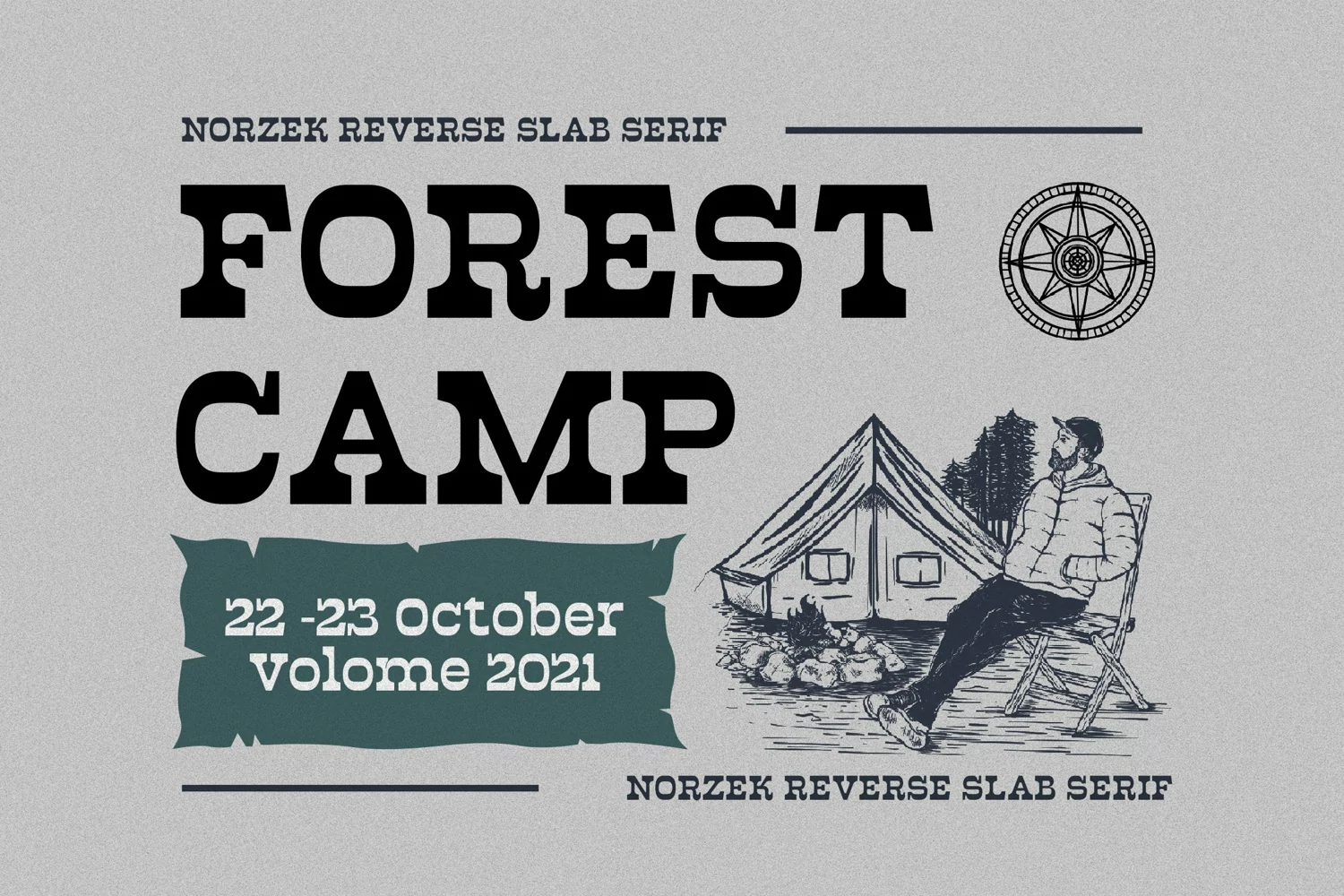
Norzek - Retro Vintage Reverse Slab Serif - Classic Adventure Font
Suitable for any design needs : logo, branding, modern advertising design, vintage garage design, adventure / mountain hiking brand, hardcore music, animation or movie, logos, retro summer poster quote, book / novel cover Title, editorial design, website / blog, card, and more.